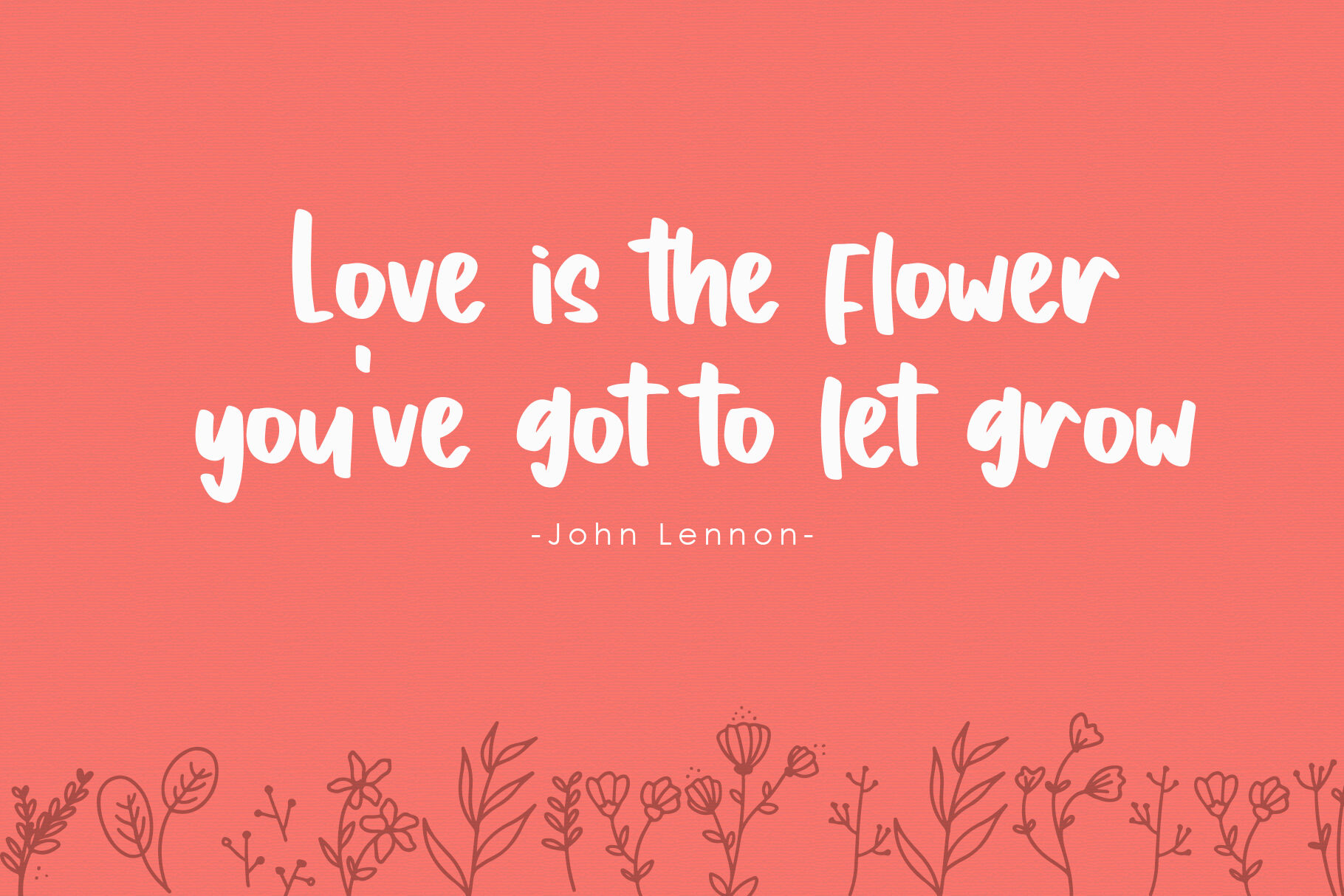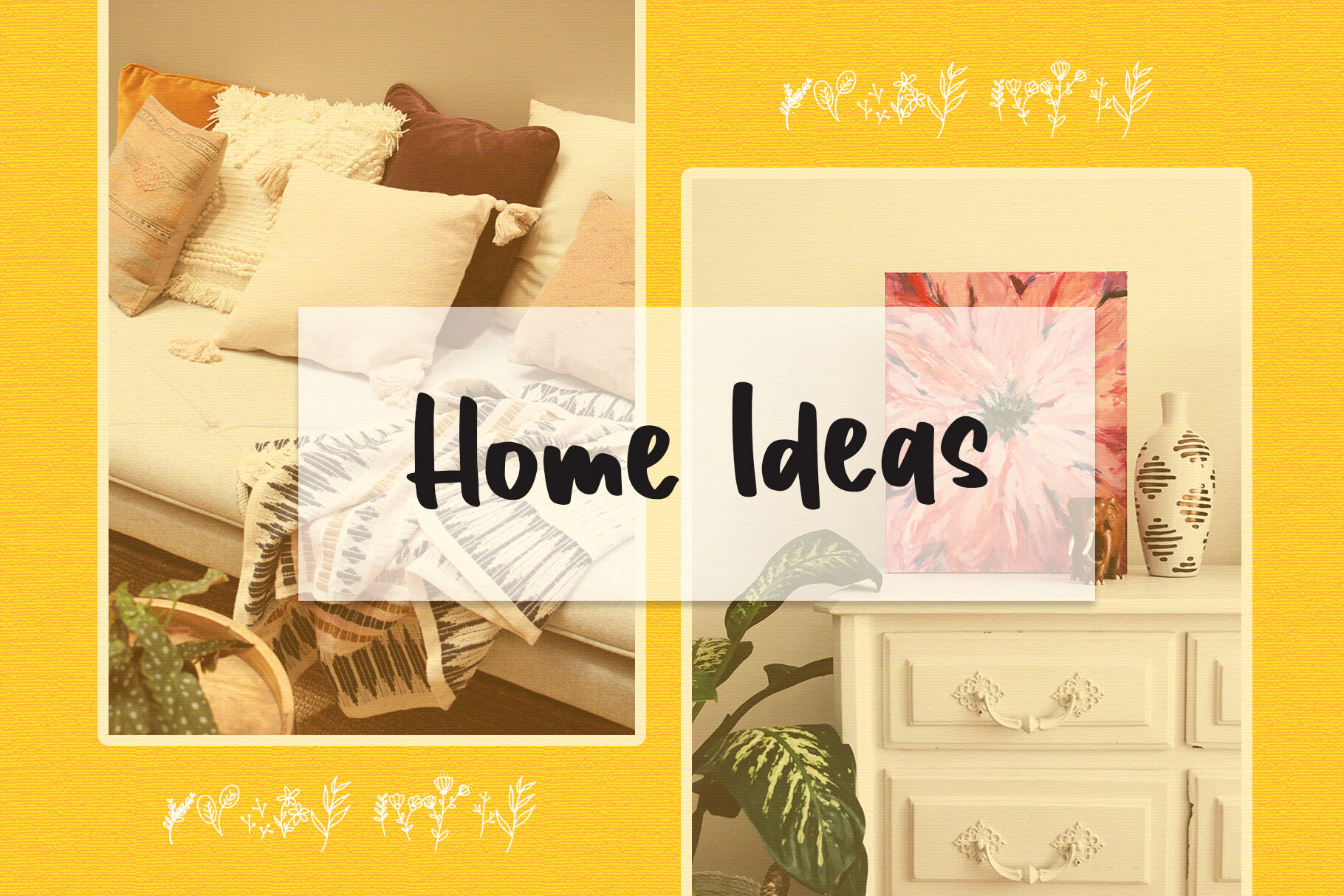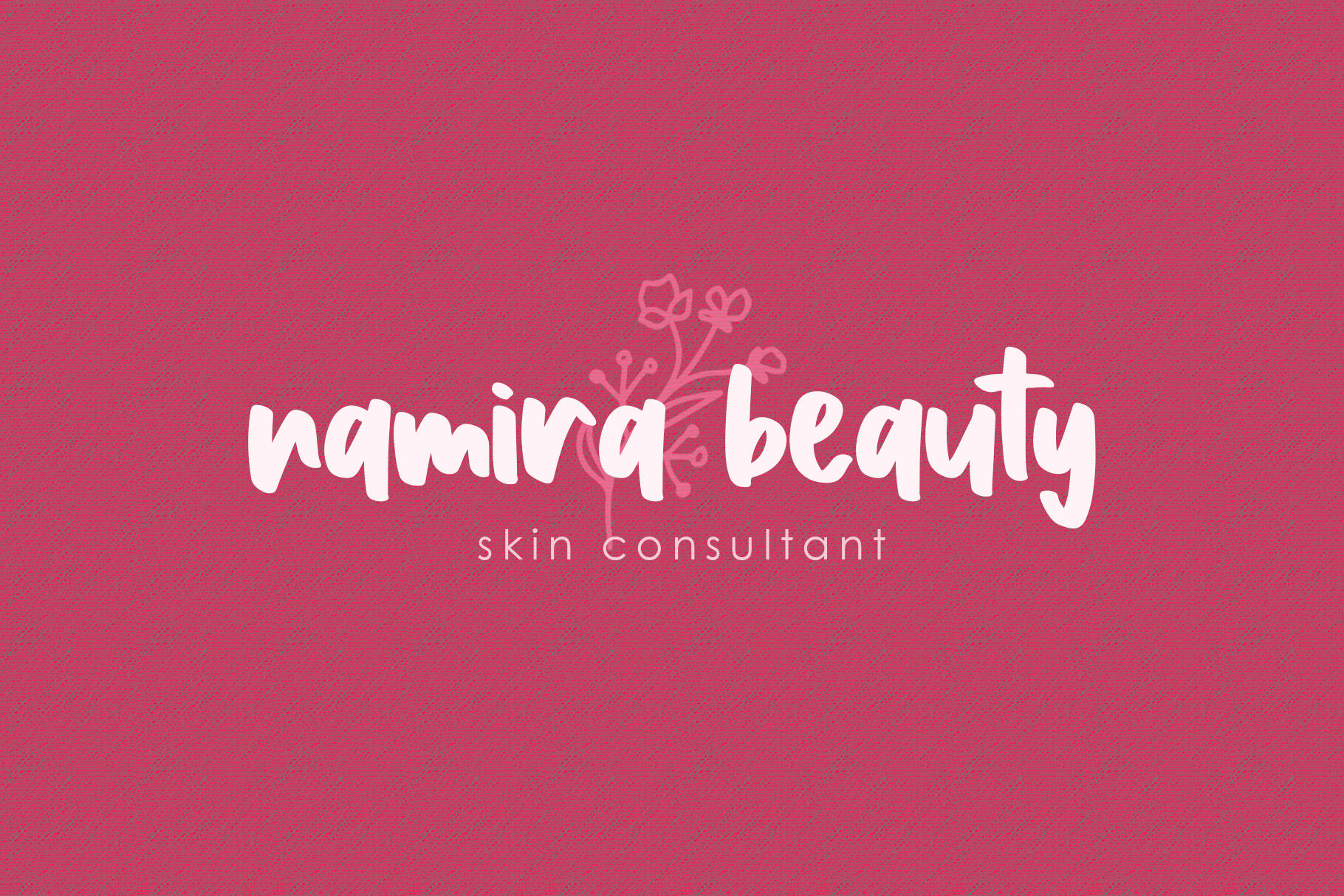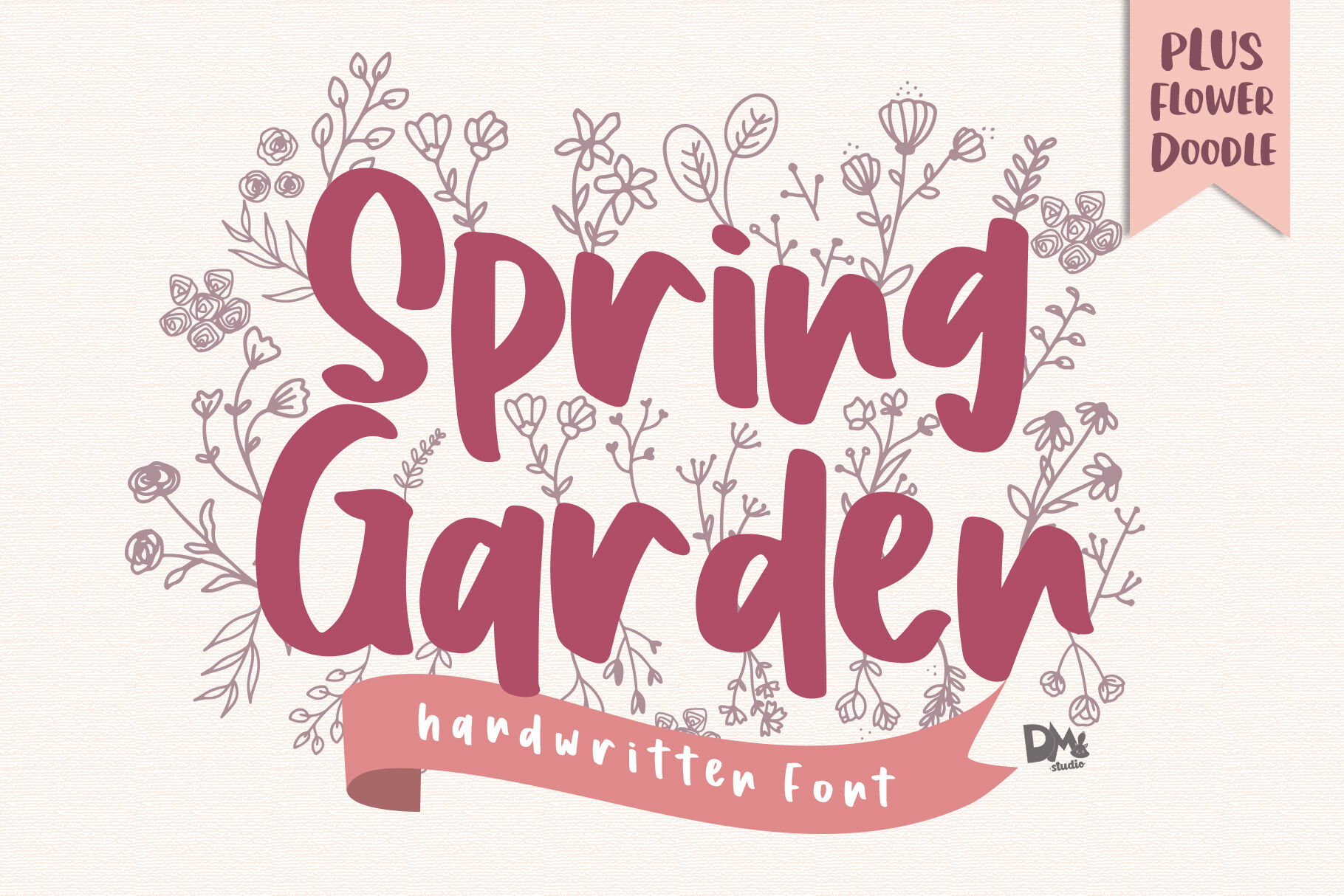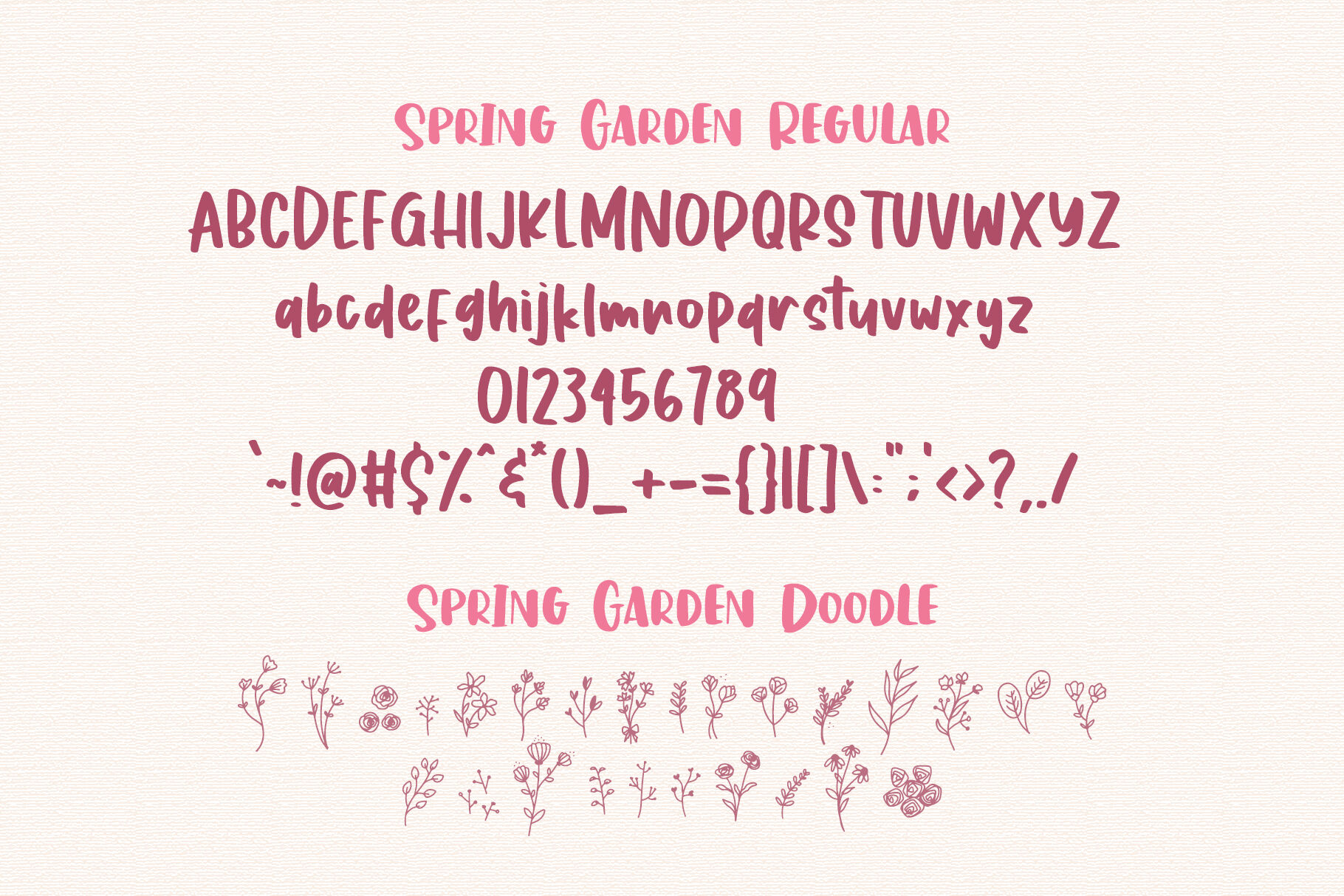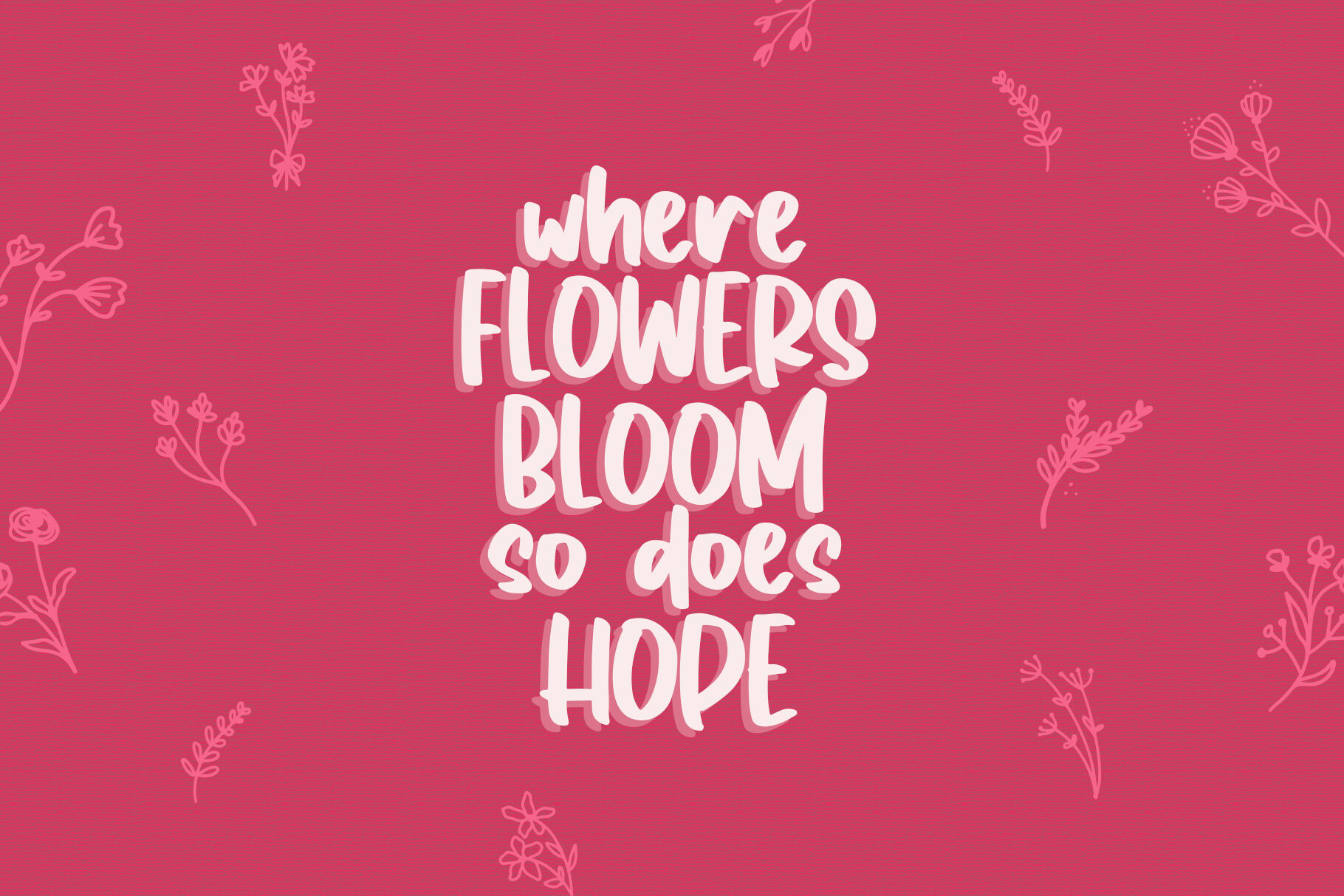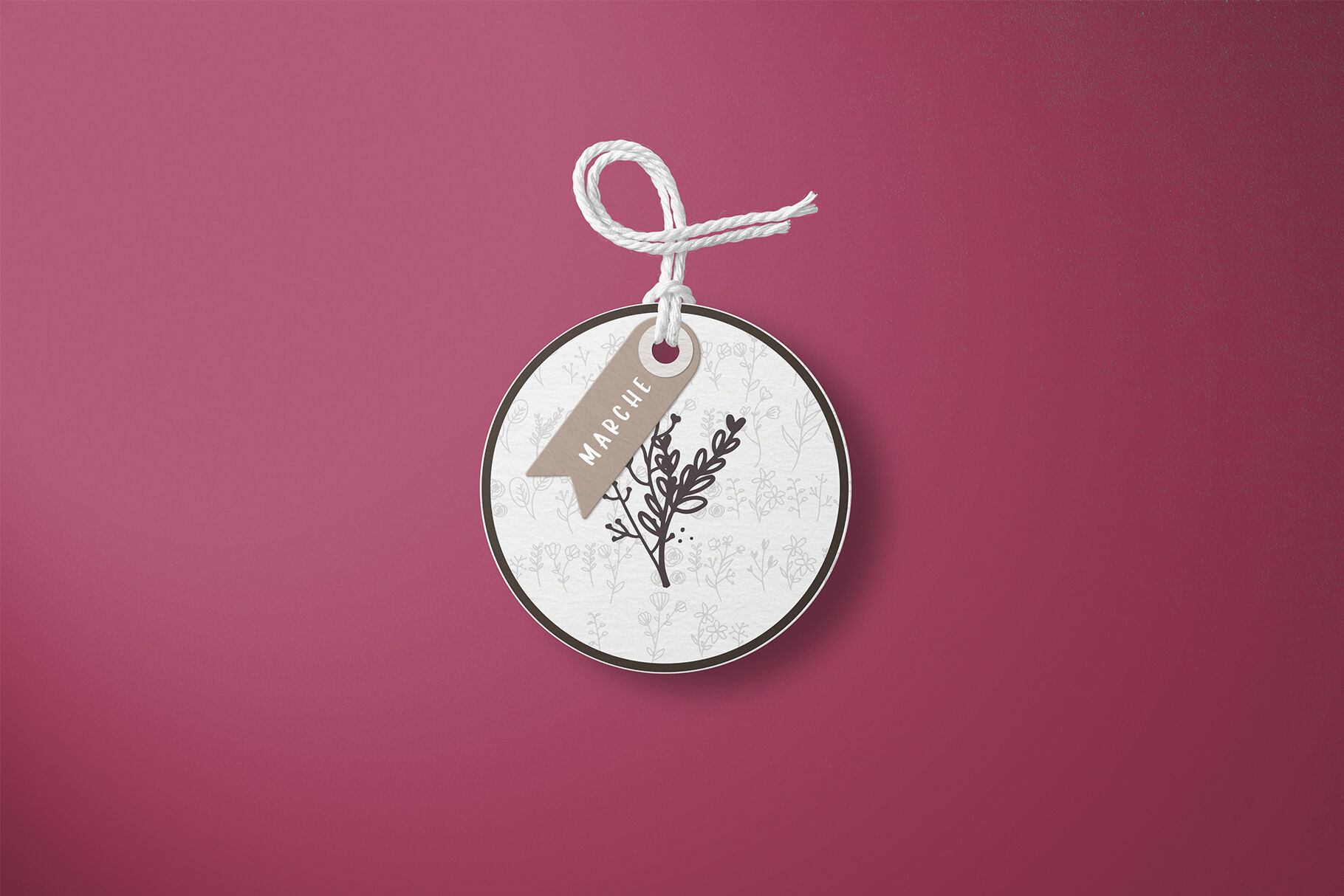
Spring Garden - Beautiful Handwritten Font
The Spring Garden Beautiful Handwritten Font is a delightful and whimsical typeface that captures the essence of a blooming garden in springtime. With its graceful letterforms and organic strokes, this font brings a touch of natural beauty and elegance to your designs, making it perfect for invitations, greeting cards, branding, and other projects that require a hint of enchantment.
Features:
Natural and Elegant Style: The Spring Garden Font exudes a natural and enchanting aesthetic. Its graceful letterforms and organic strokes capture the beauty and serenity of a garden in full bloom, creating an elegant and inviting look for your designs.
Beautiful Handwritten Design: The font's handwritten style adds a personal and authentic touch to your typography. It emulates the free-flowing quality of handwriting, bringing a sense of warmth and familiarity to your designs.
Versatile Application: This font is versatile and well-suited for various design projects that aim to evoke a sense of beauty and natural elegance. Use it in invitations, greeting cards, branding, packaging, and more to add a touch of enchantment and sophistication to your designs.
Uppercase and Lowercase Letters: The font includes both uppercase and lowercase letters, providing flexibility and creative freedom in your designs. Mix and match the cases to create visually appealing and harmonious typography.
Punctuation and Symbols: In addition to the alphabet, the Spring Garden Font includes a comprehensive set of punctuation marks, numerals, and common symbols. This ensures consistency and ease of use when incorporating the font into your design projects.
Capture the beauty and serenity of a spring garden with the Spring Garden Beautiful Handwritten Font. Let its graceful letterforms and organic strokes bring a touch of natural elegance to your invitations, greeting cards, and branding. Embrace the enchanting nature of this font and create designs that resonate with the beauty of the outdoors.